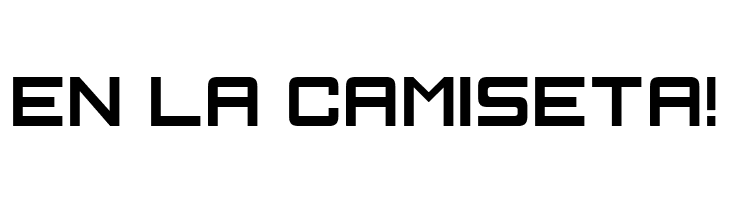
Quaaludehulk-Regular Font
( Fonts by Zdenek Gromnica - www.futuremillennium.com )
A bold, geometric font with sharp, angular edges and a modern aesthetic.